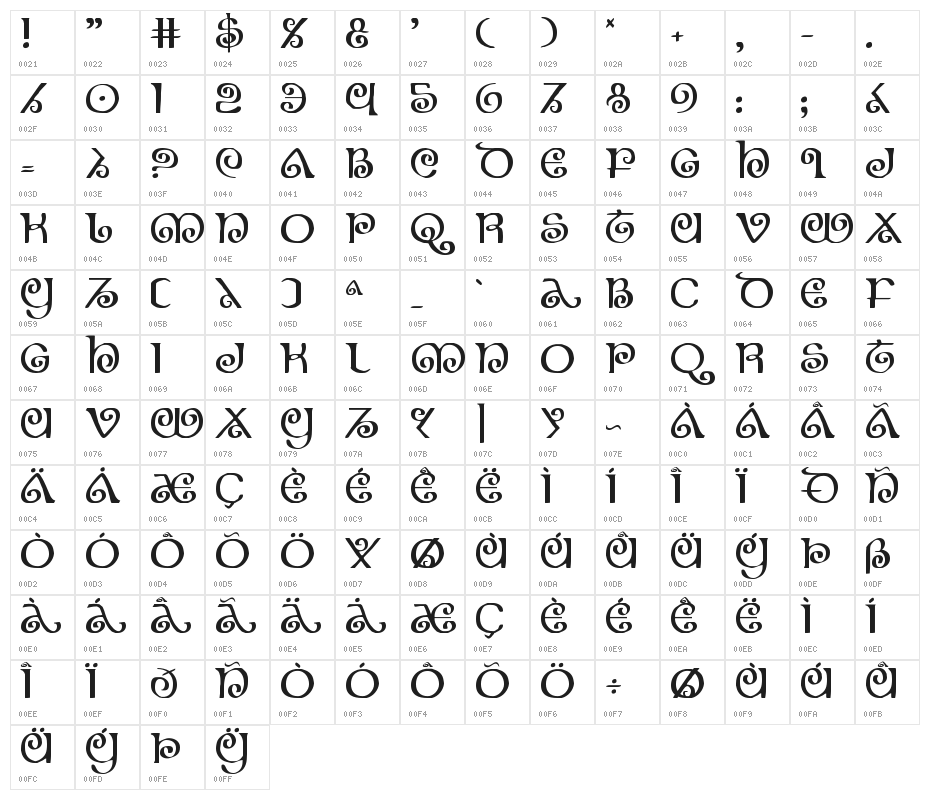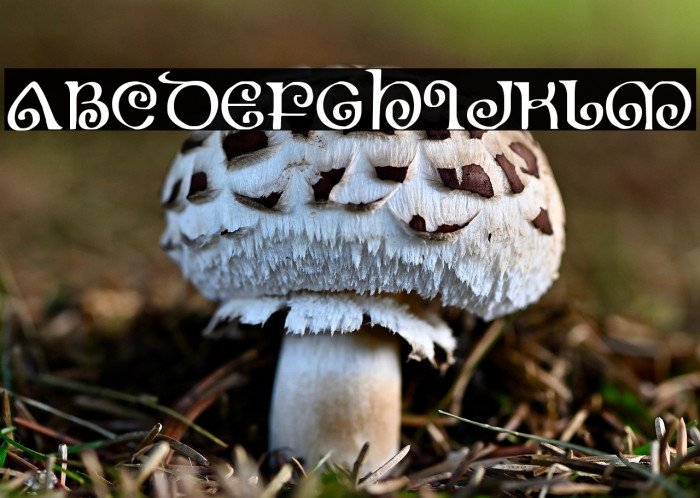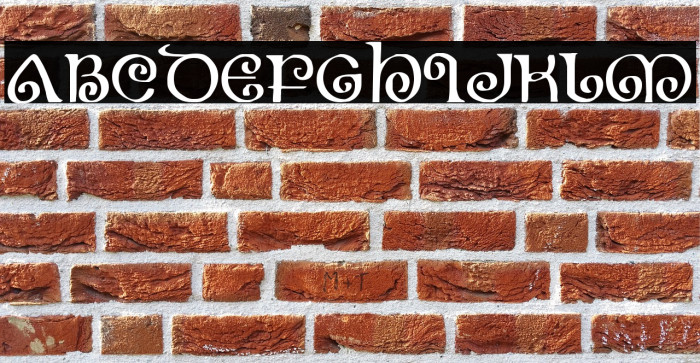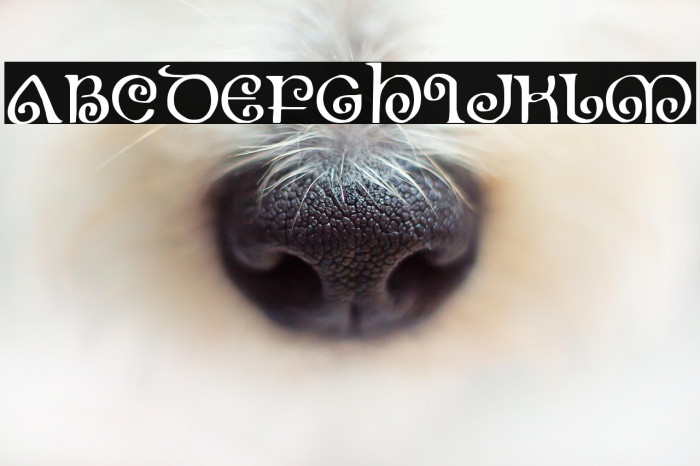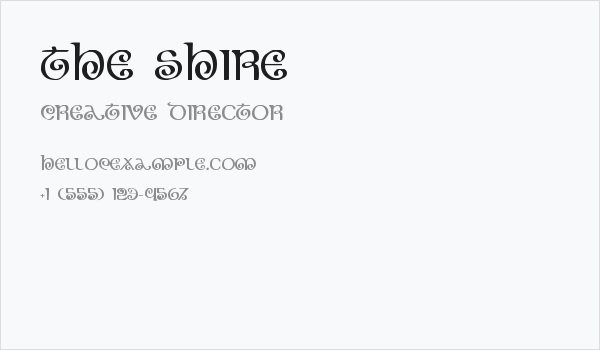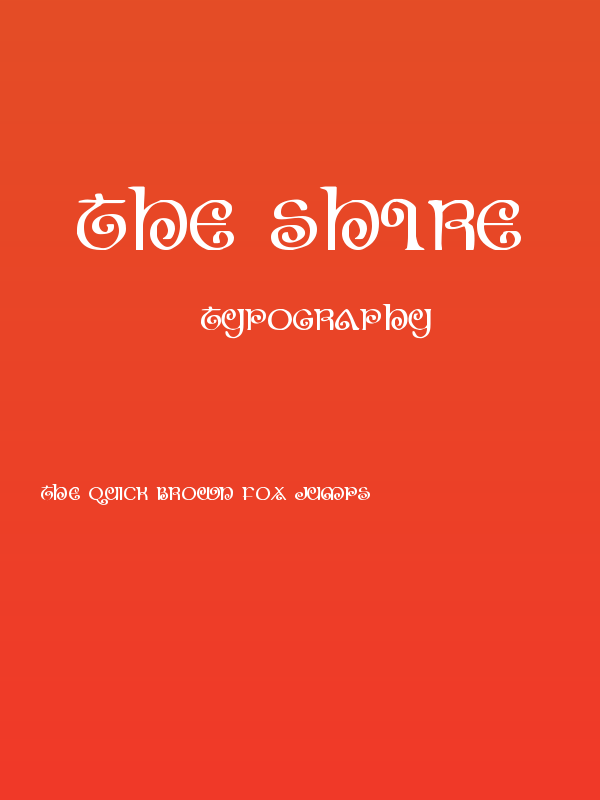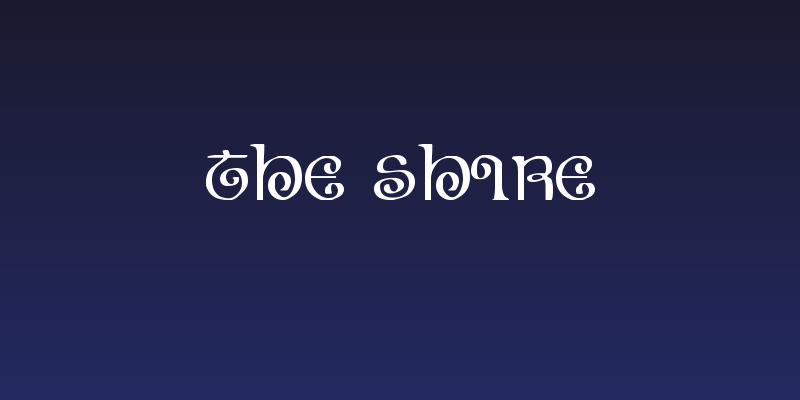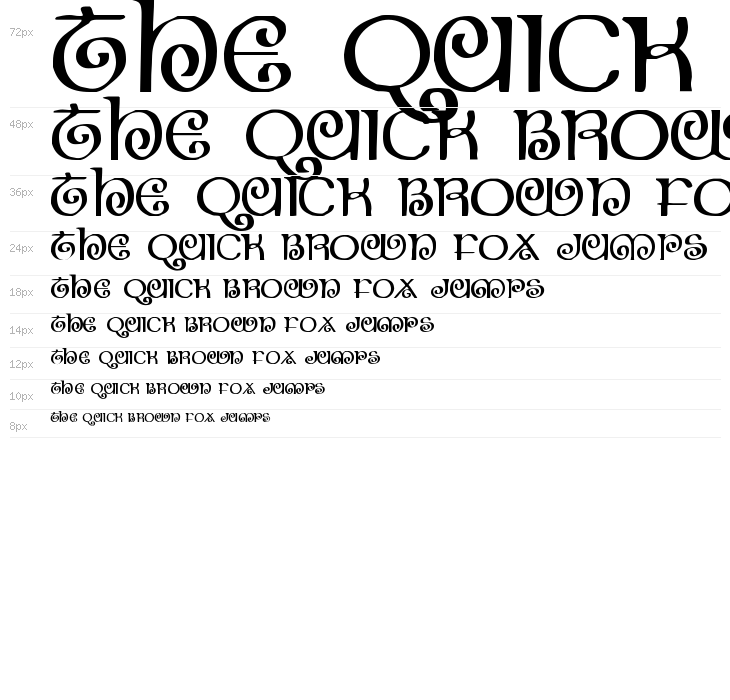
The Shire Font
The Shire Description
This font features a whimsical and decorative style, characterized by its intricate and playful curves. The letters are embellished with unique swirls and loops, giving it a fantasy-like appearance. The uppercase and lowercase letters maintain a consistent theme, with each character displaying a distinct personality. The numbers and special characters are equally ornate, ensuring a cohesive look across all glyphs. This font's artistic flair makes it stand out, ideal for projects that require a touch of creativity and imagination.